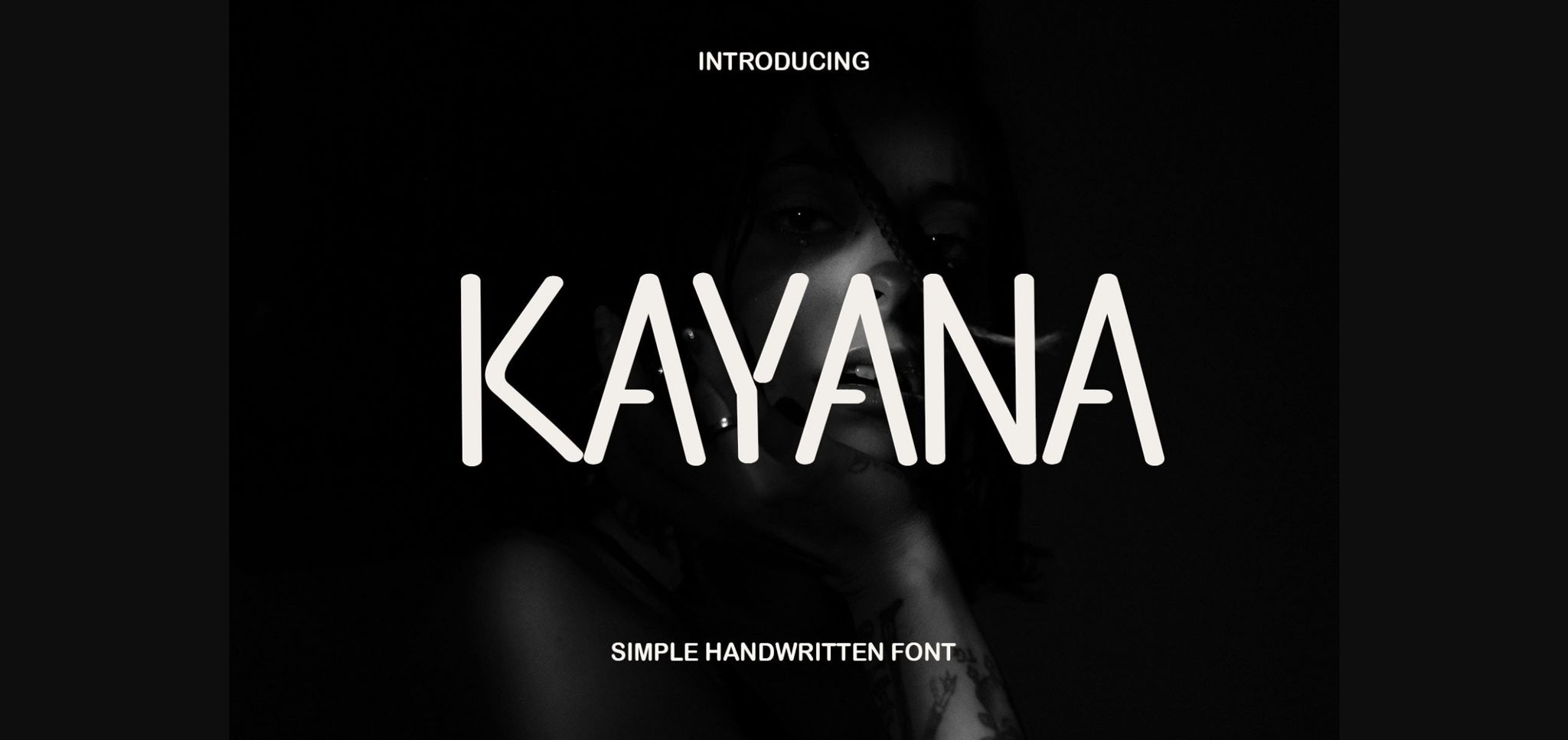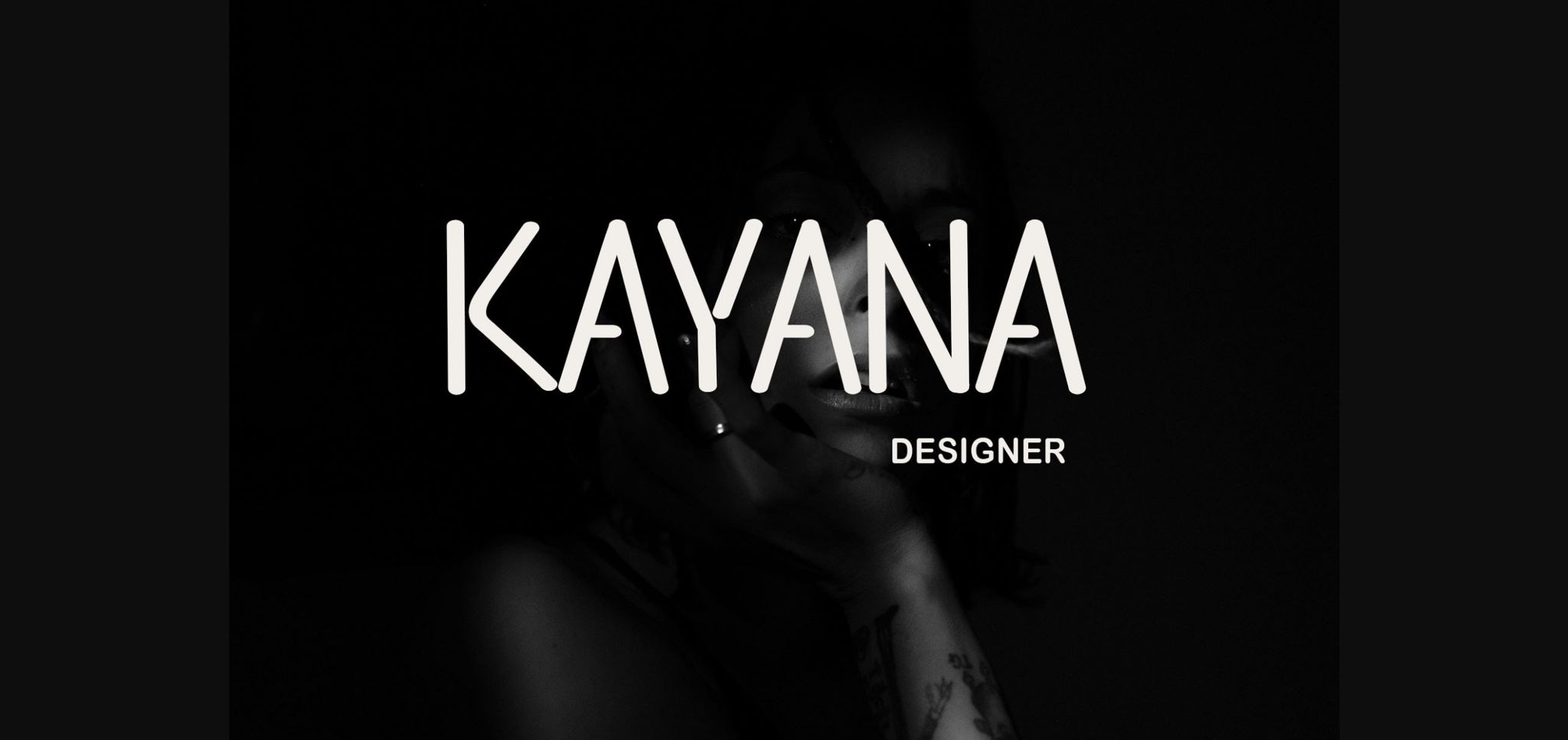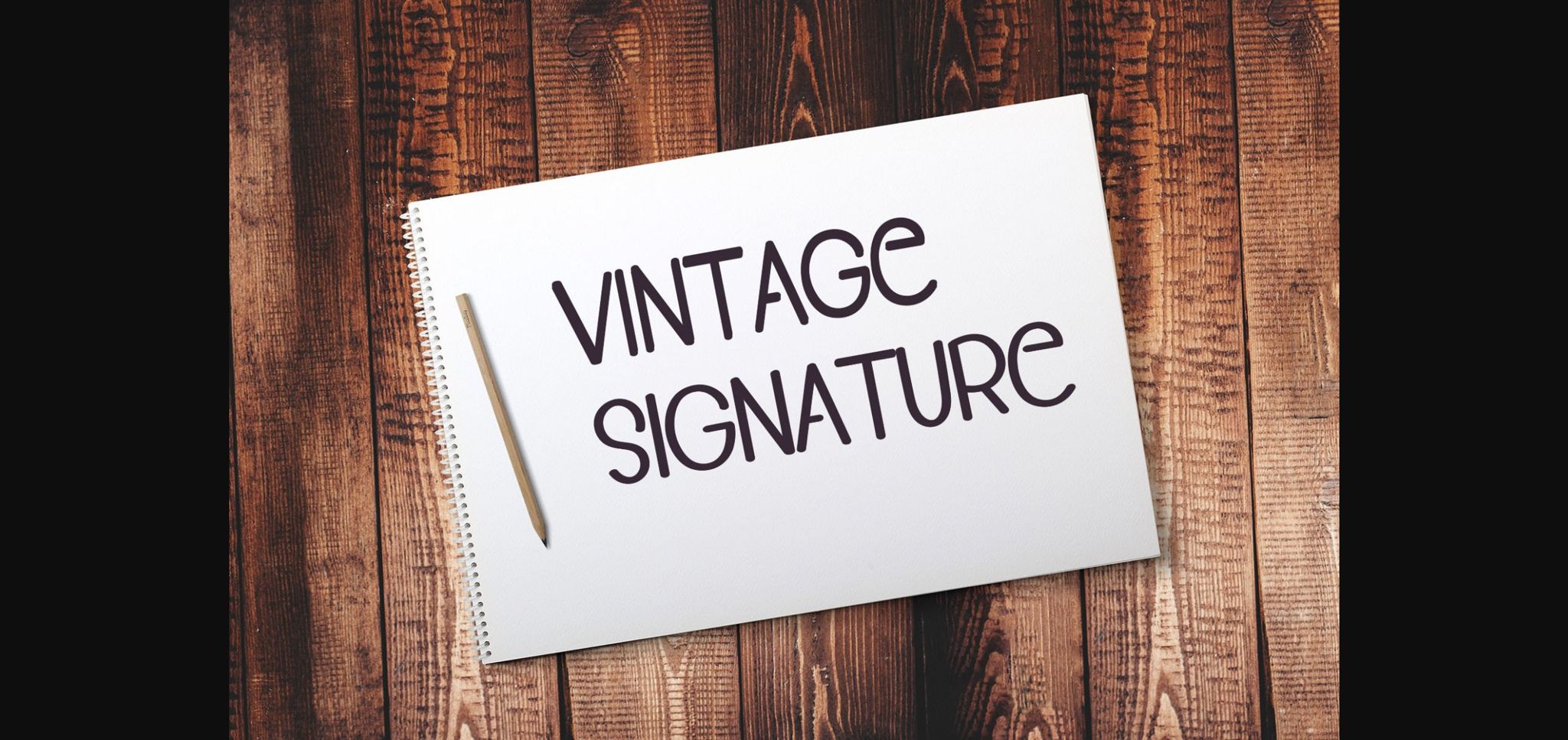
About Kayana Font
Kayana is a neat and beautiful handwritten font described by an elegant touch, perfect for your favorite projects. Fall in love with its incredibly distinct and timeless style, and use it to create spectacular designs!